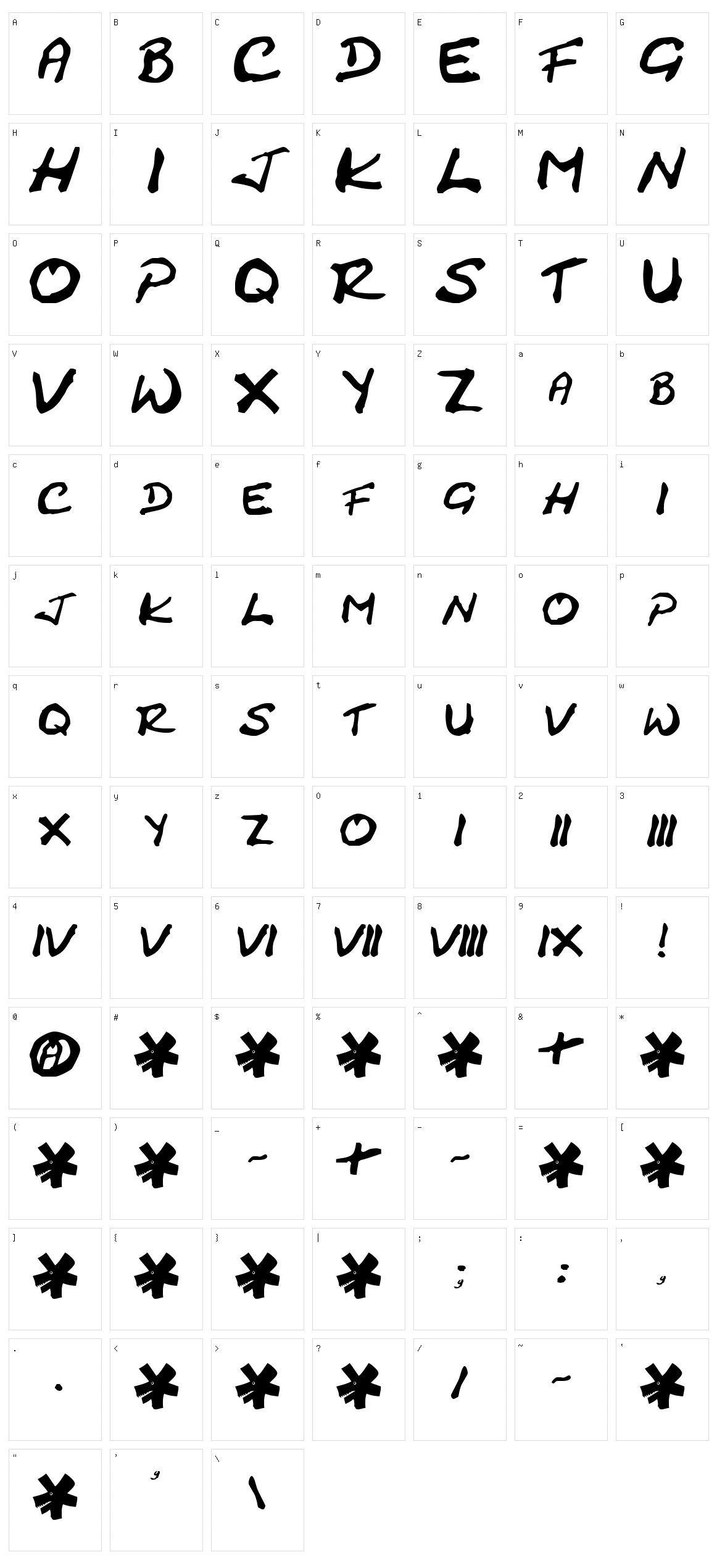
The free font Cracked Johnnie is carefully designed by pOPdOG fONTS, showcasing a thoughtful balance of creativity and usability and falls under the Trash font style. When you download the ZIP file, it contains only 14.62 KB of font files, making it lightweight and quick to download. Please review the license details below to understand permitted usage and distribution rights. If license information is not available, we recommend using this font for personal projects only or contacting the author directly for commercial usage permissions.